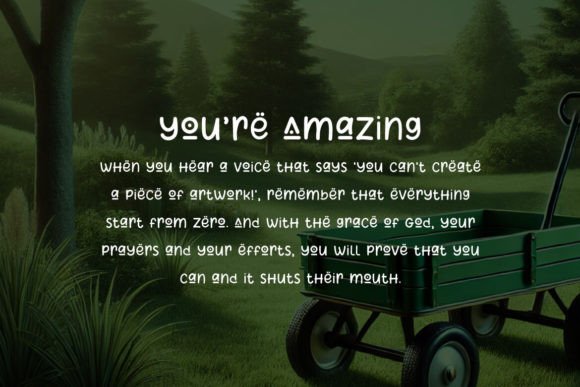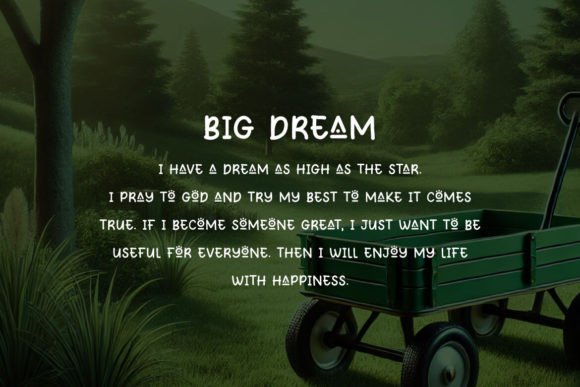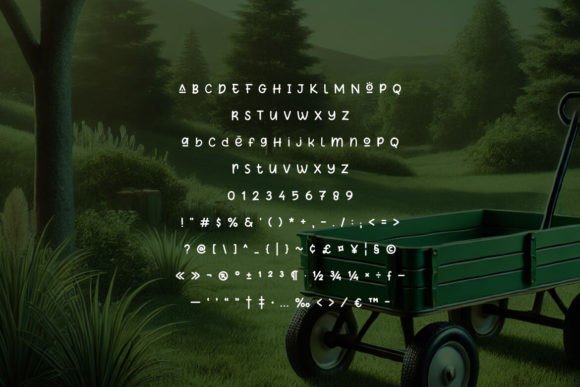
Introducing the Green Wagon Font: Adding a Touch of Whimsy to Your Designs
Have you ever been in the middle of a design project, and suddenly, you just can’t seem to find the right font? I recall working on a children’s book project, and my client asked for a playful, cheerful typeface that would bring the story to life. After scouring through countless font libraries, I stumbled upon a delightful font that perfectly captured the essence of the story. That’s when I knew I had to share this amazing find with fellow designers and creative hobbyists. In this article, we’ll dive into the wonderful world of the Green Wagon Font, a decorative typeface that’s sure to add a touch of magic to your creative projects.
A Personal Design Moment: The Search for the Perfect Font
I was working on a comic book project, and I needed a font that would match the playful and adventurous tone of the story. I spent hours browsing through font libraries, but nothing seemed to fit the bill. That’s when I discovered the Green Wagon Font. Its unique blend of playfulness and whimsy immediately caught my attention, and I knew I had found the perfect fit. In this article, I’ll share my experience with the Green Wagon Font and provide you with a comprehensive guide on how to use it in your designs.
The Green Wagon Font: A Delightful and Playful Typeface
The Green Wagon Font is a decorative typeface designed to bring a touch of whimsy and fun to your creative projects. This font is perfect for:
- Comics
- Children’s books
- Playful branding
- Greeting cards
- Any project that needs a cheerful and vibrant touch
- ✨ Unique and playful design that adds a touch of whimsy to any project
- ✅ Easy to read and understand, even at smaller font sizes
- 👍 Highly versatile and can be used for a variety of design projects
- 🤔 May not be suitable for formal or professional projects, as it’s a highly decorative font
- ⚠️ Some characters may not be suitable for use at very small font sizes, due to their intricate design
The Designer Inspiration Behind the Green Wagon Font
The Green Wagon Font was designed with the intention of creating a playful and whimsical typeface that would bring joy to designers and readers alike. The designer wanted to create a font that would evoke a sense of nostalgia and wonder, perfect for projects that require a touch of magic and creativity.
| Font Name | Green Wagon Font |
| Author | Mightyfire |
Q: What type of projects is the Green Wagon Font best suited for?
A: The Green Wagon Font is perfect for comics, children’s books, playful branding, greeting cards, and any project that needs a cheerful and vibrant touch.
Q: Is the Green Wagon Font easy to read?
A: Yes, the Green Wagon Font is designed to be easy to read and understand, even at smaller font sizes.
Conclusion
The Green Wagon Font is a delightful and playful typeface that’s sure to add a touch of whimsy and fun to your creative projects. With its unique design, ease of use, and versatility, this font is perfect for designers, crafters, and creative hobbyists looking to add a personal touch to their work. Whether you’re working on a children’s book, a comic, or a playful branding project, the Green Wagon Font is sure to bring a smile to your face and inspire your creativity.